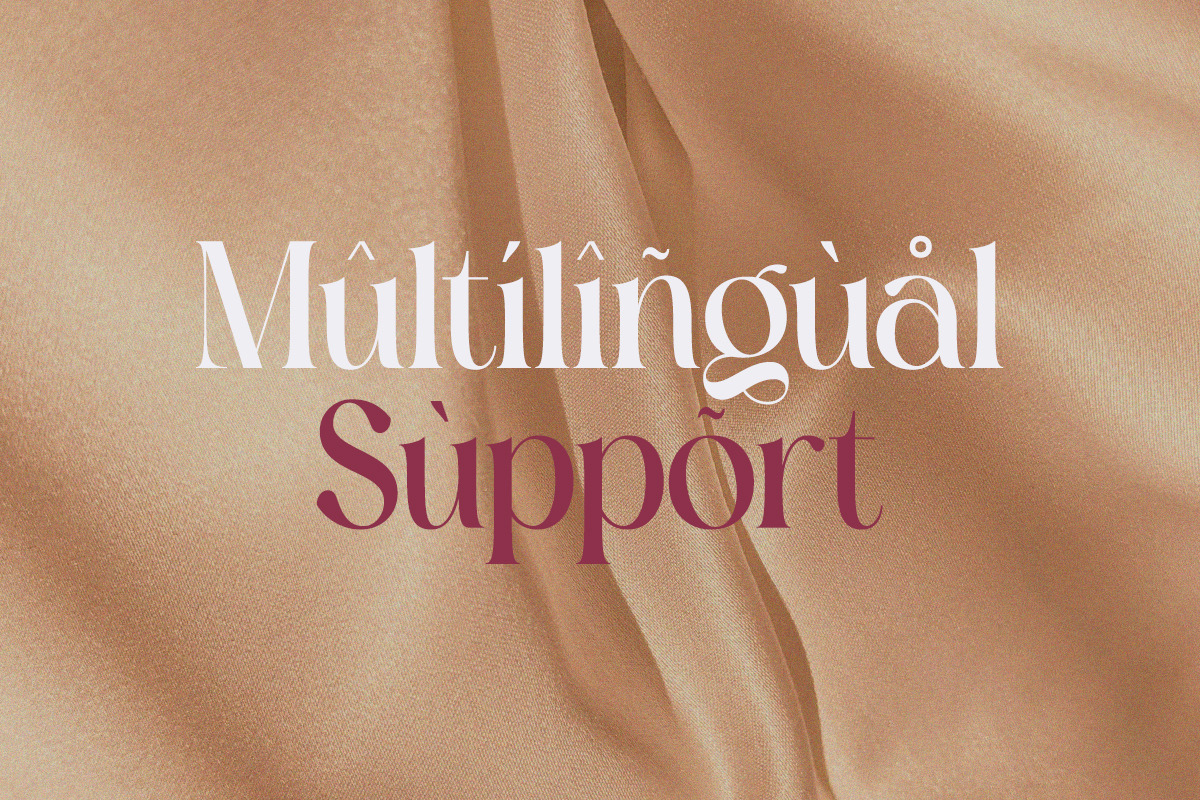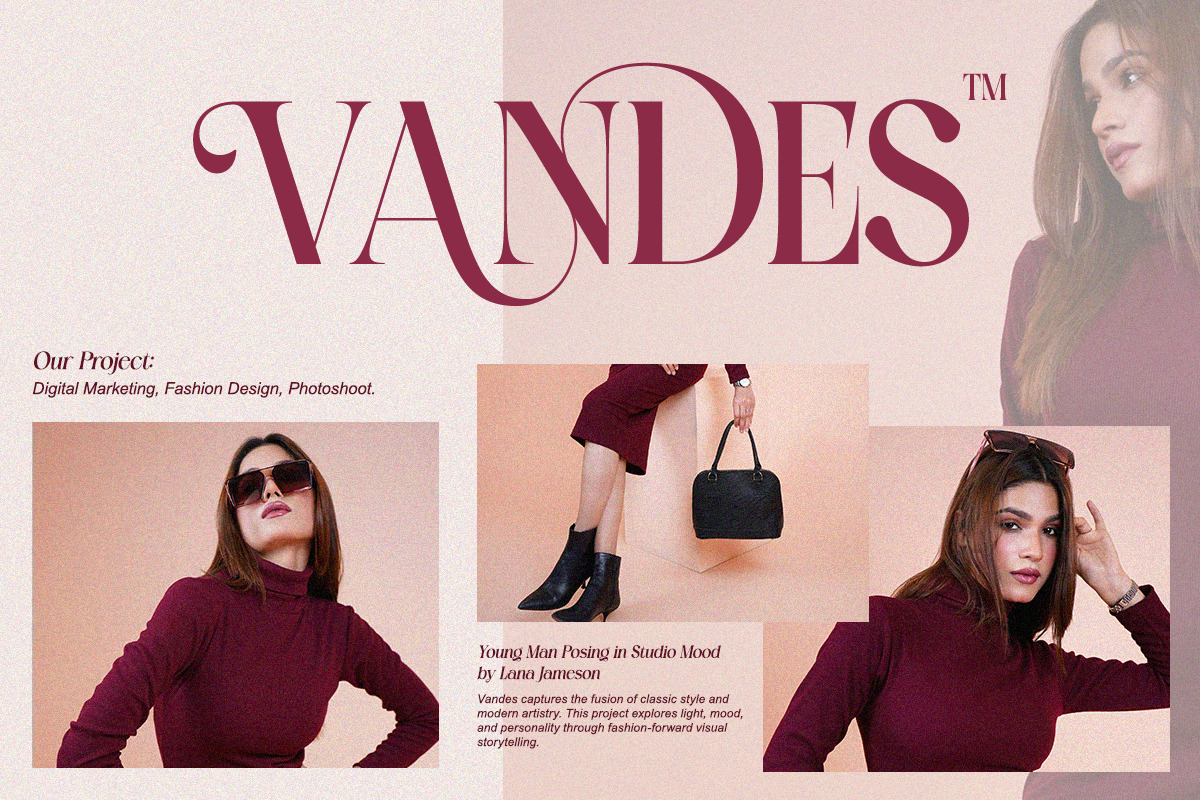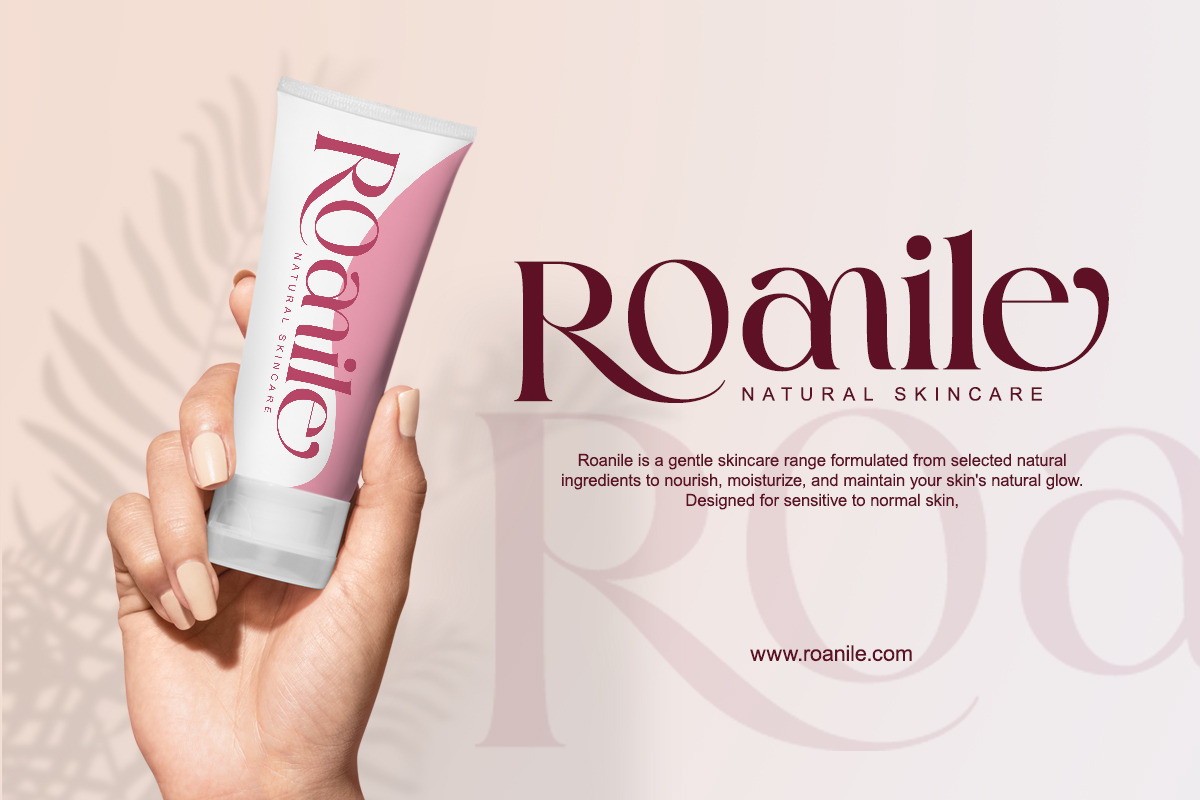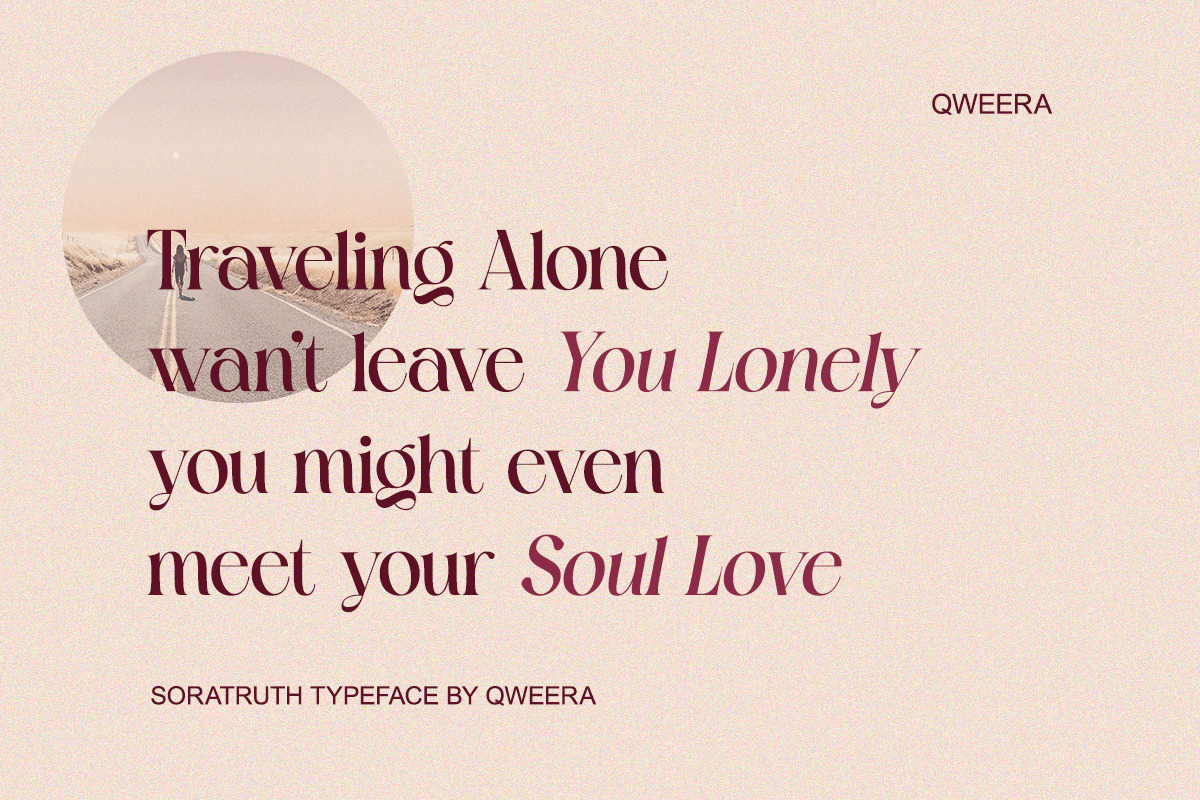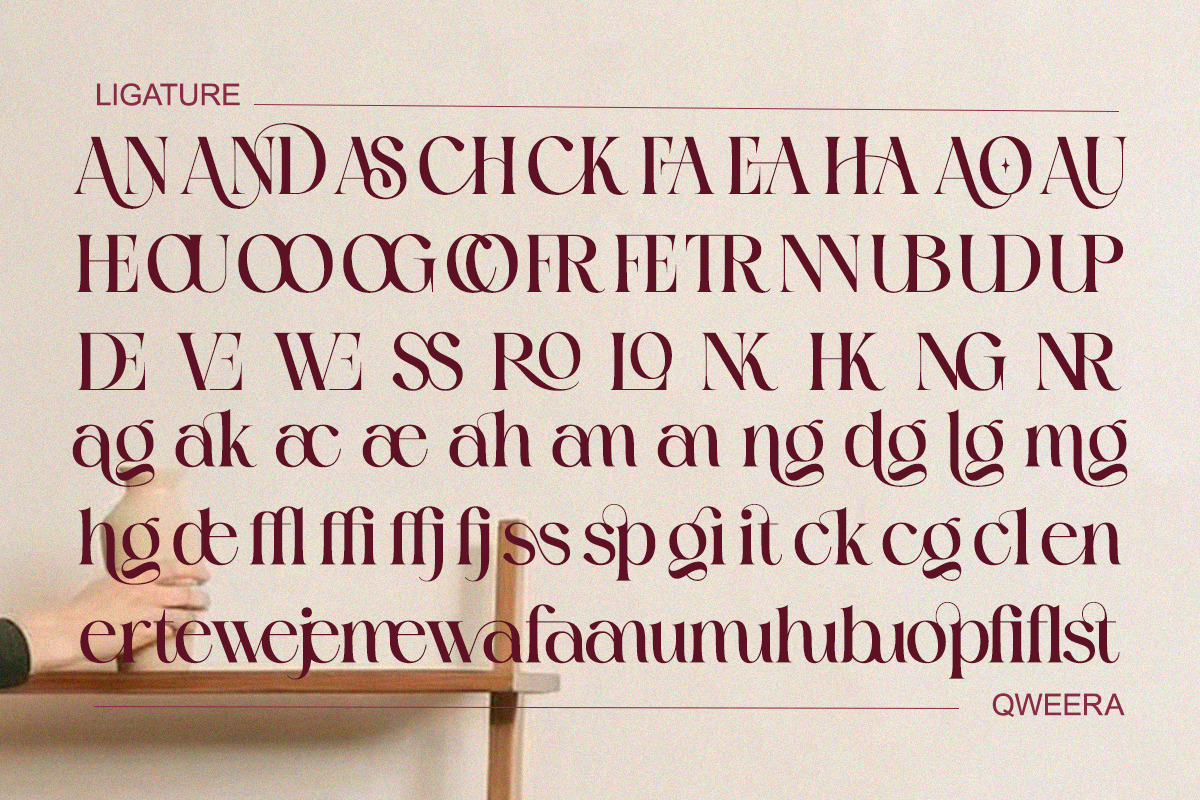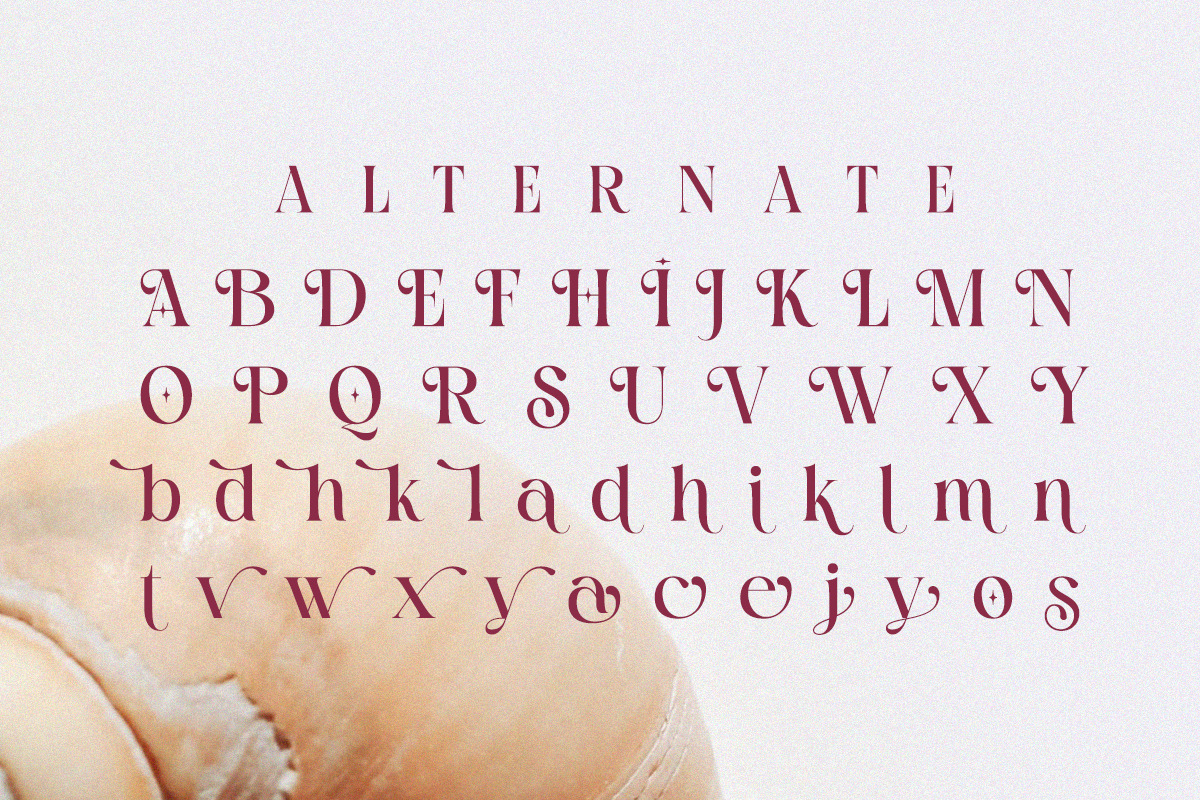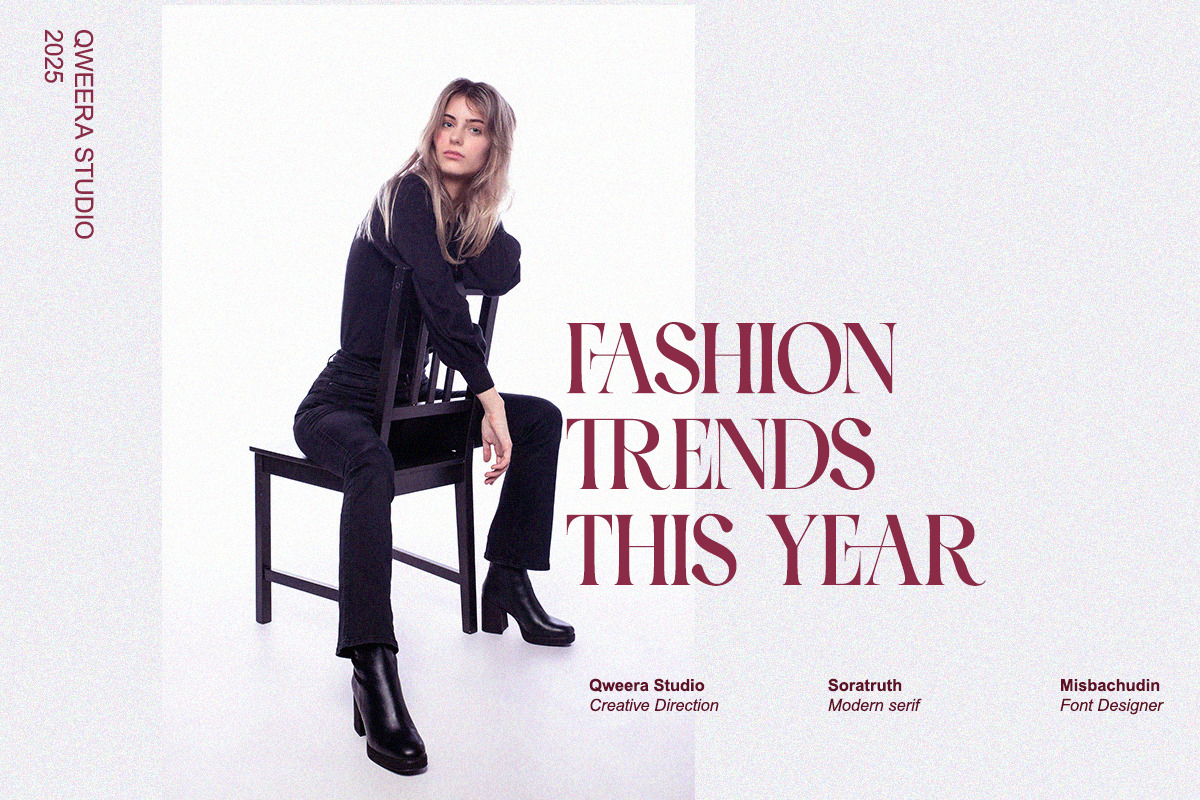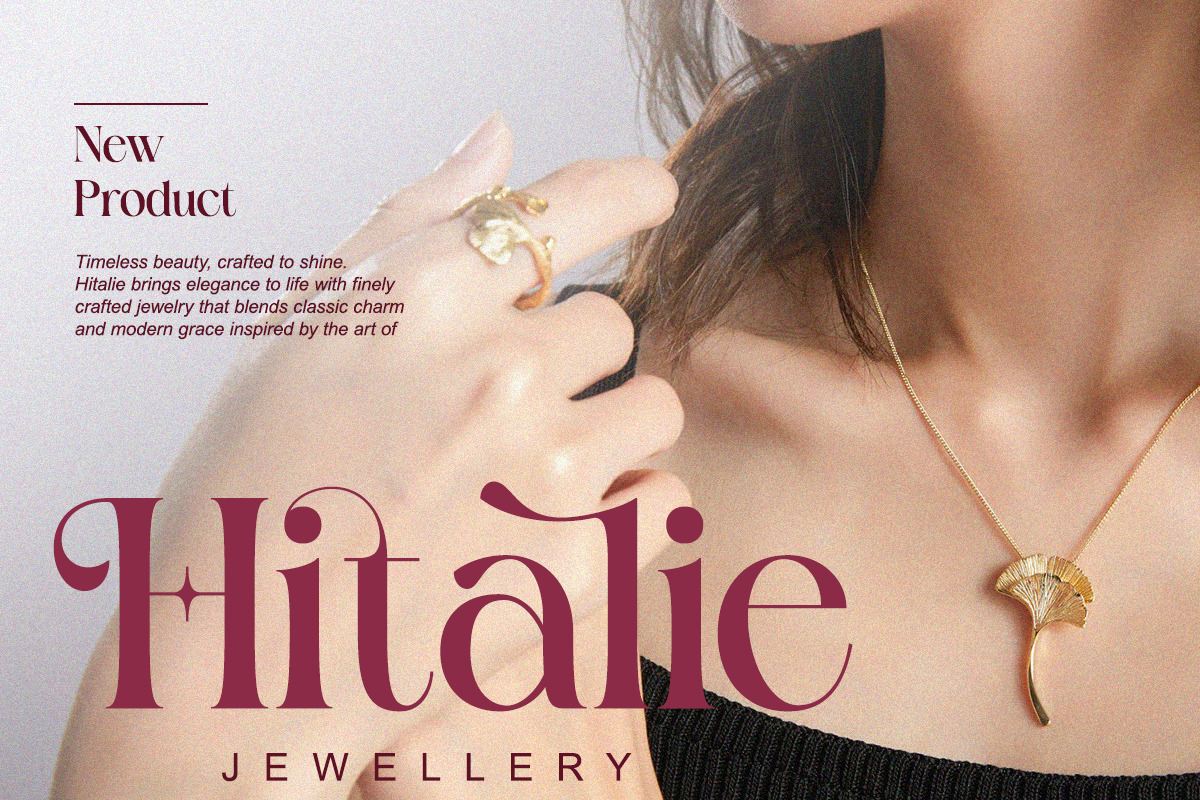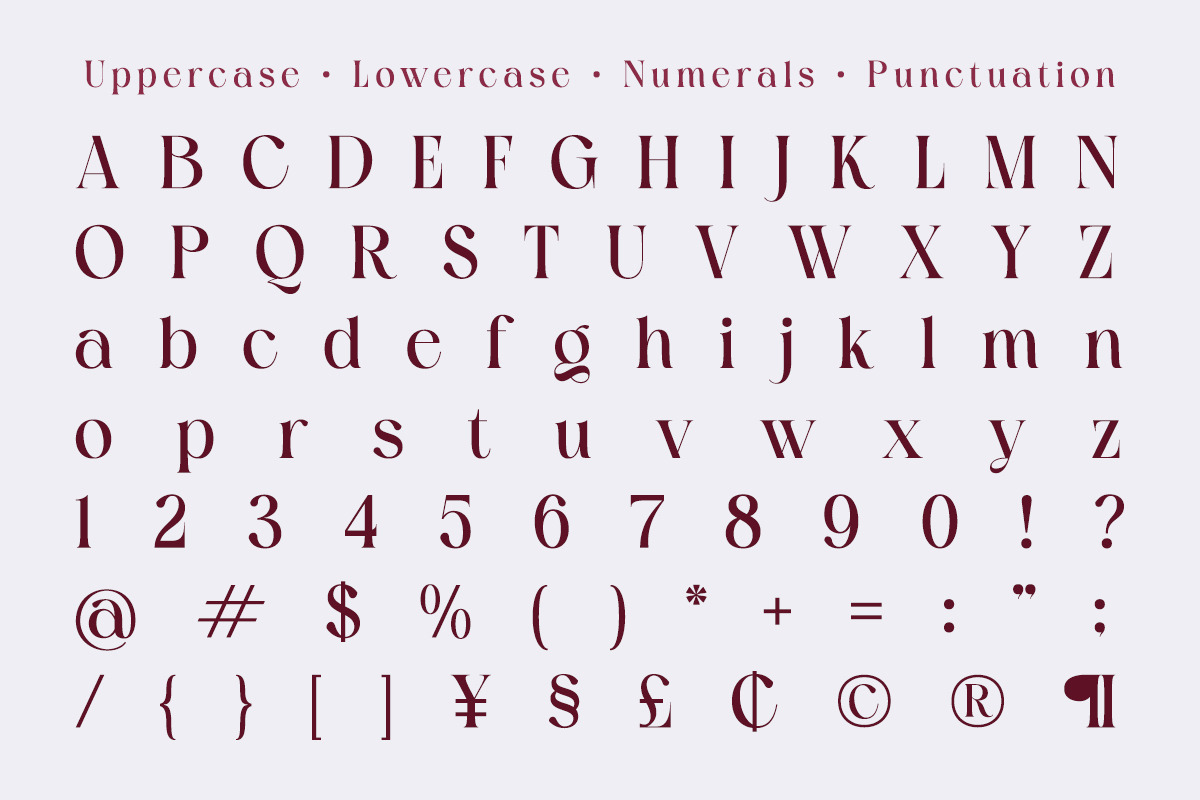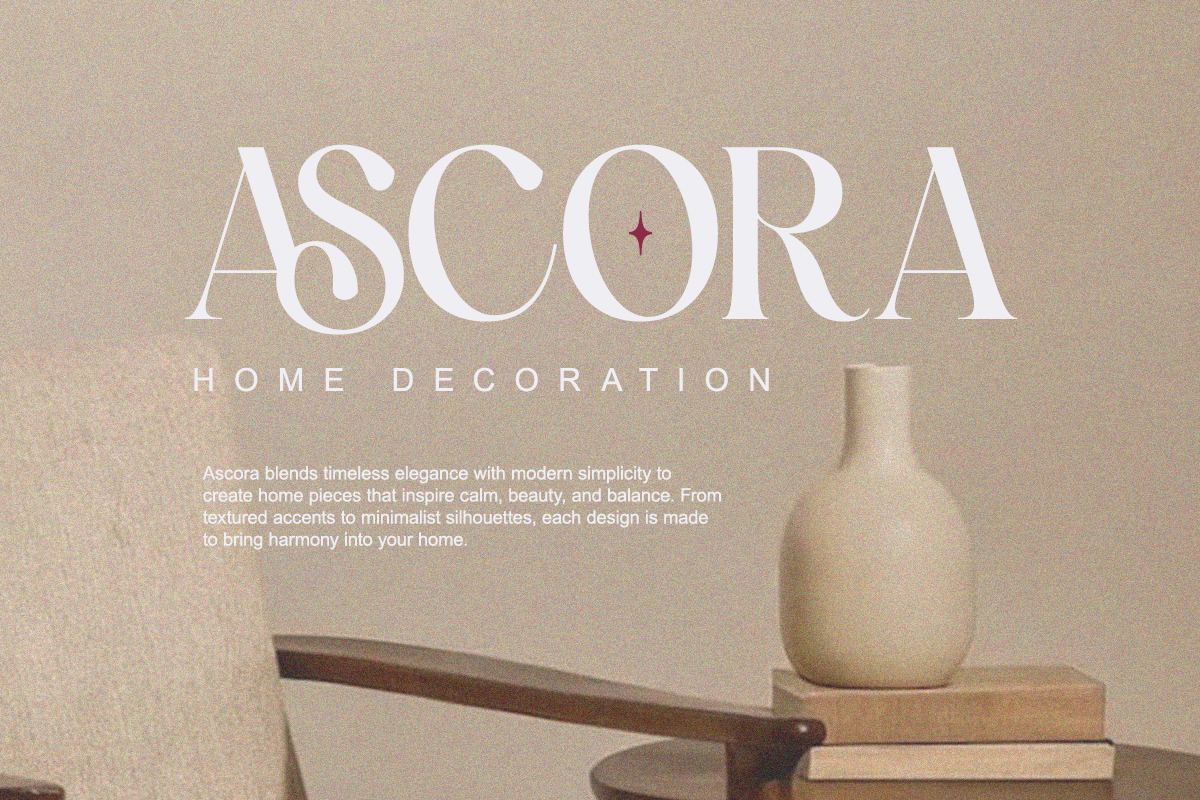
Soratruth - Modern Elegant Luxury
Soratruth is a refined modern serif font that blends elegance, sophistication, and artistic charm.
Its unique star-shaped counters, graceful curves, and balanced proportions make it an exceptional choice for high-end branding and editorial design. Crafted for designers who want their typography to exude personality, Soratruth transforms every word into a statement.
From luxury packaging to fashion magazines, Soratruth delivers the perfect balance between contemporary style and timeless beauty.
- Regular & Italic
- Alternates & stylistic ligatures
- Fashion branding & advertising
- Elegant invitations & menus
- Editorial & magazine layouts
- Boutique product packaging
- Art galleries & creative projects
- Luxury website headings
Unleash your creative truth with Soratruth.